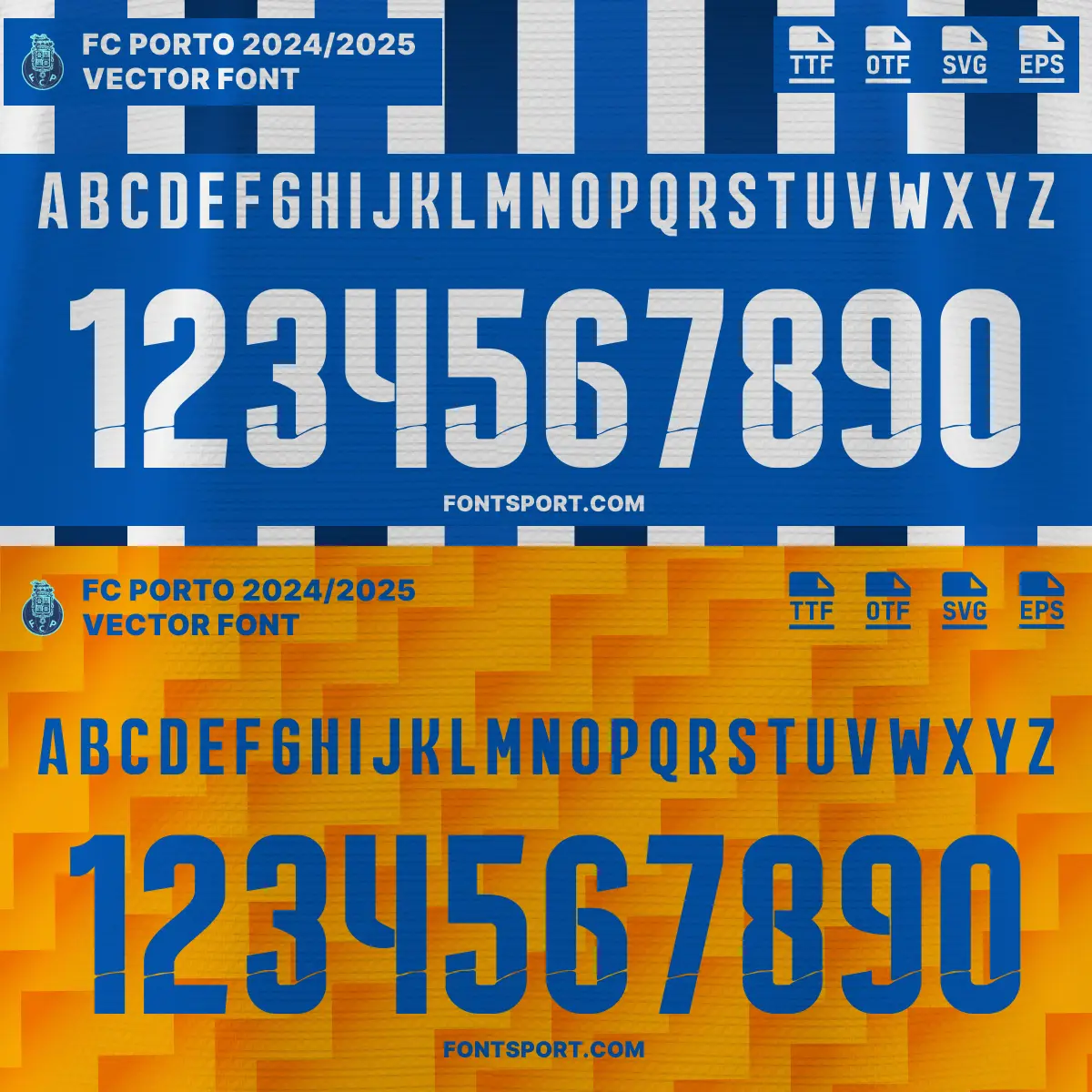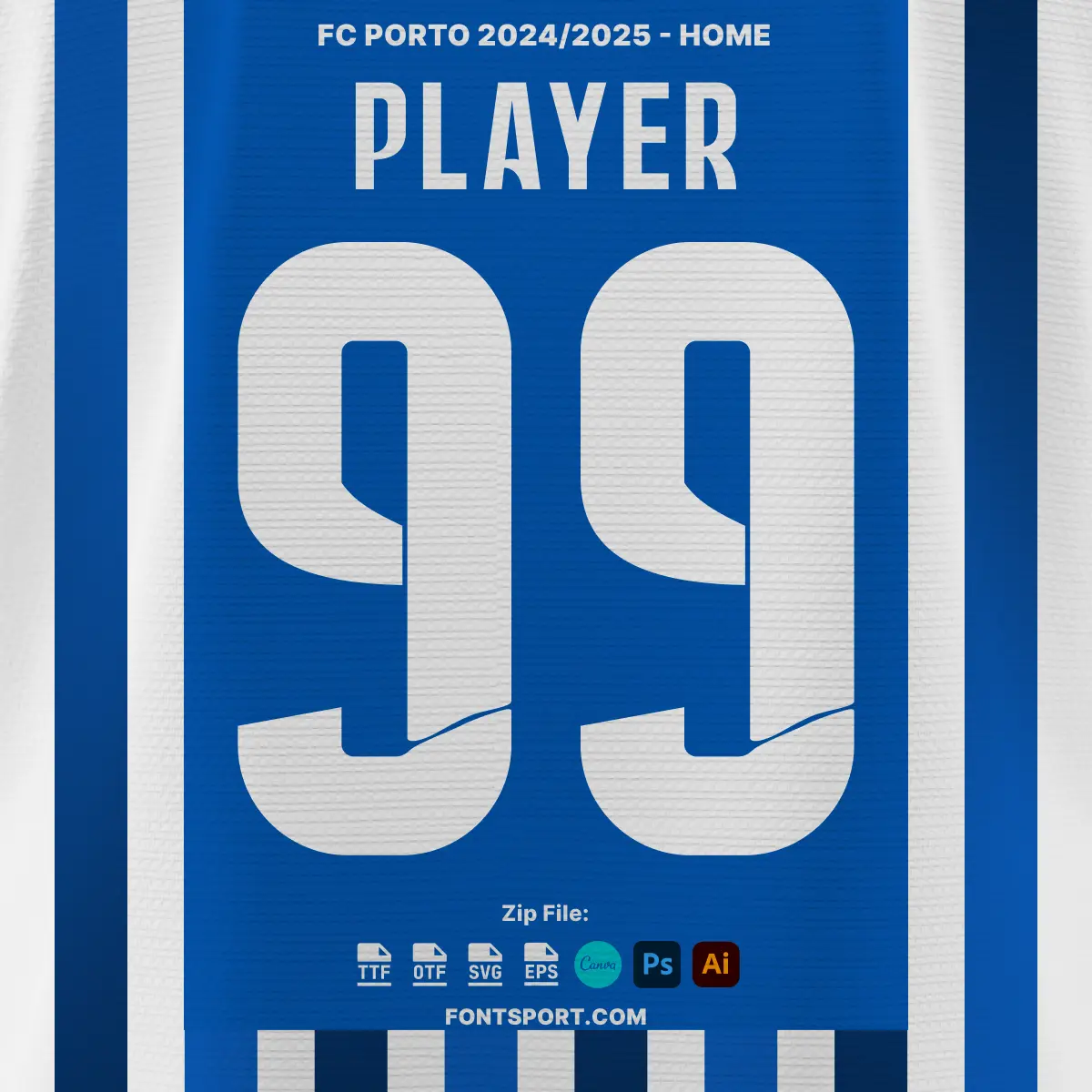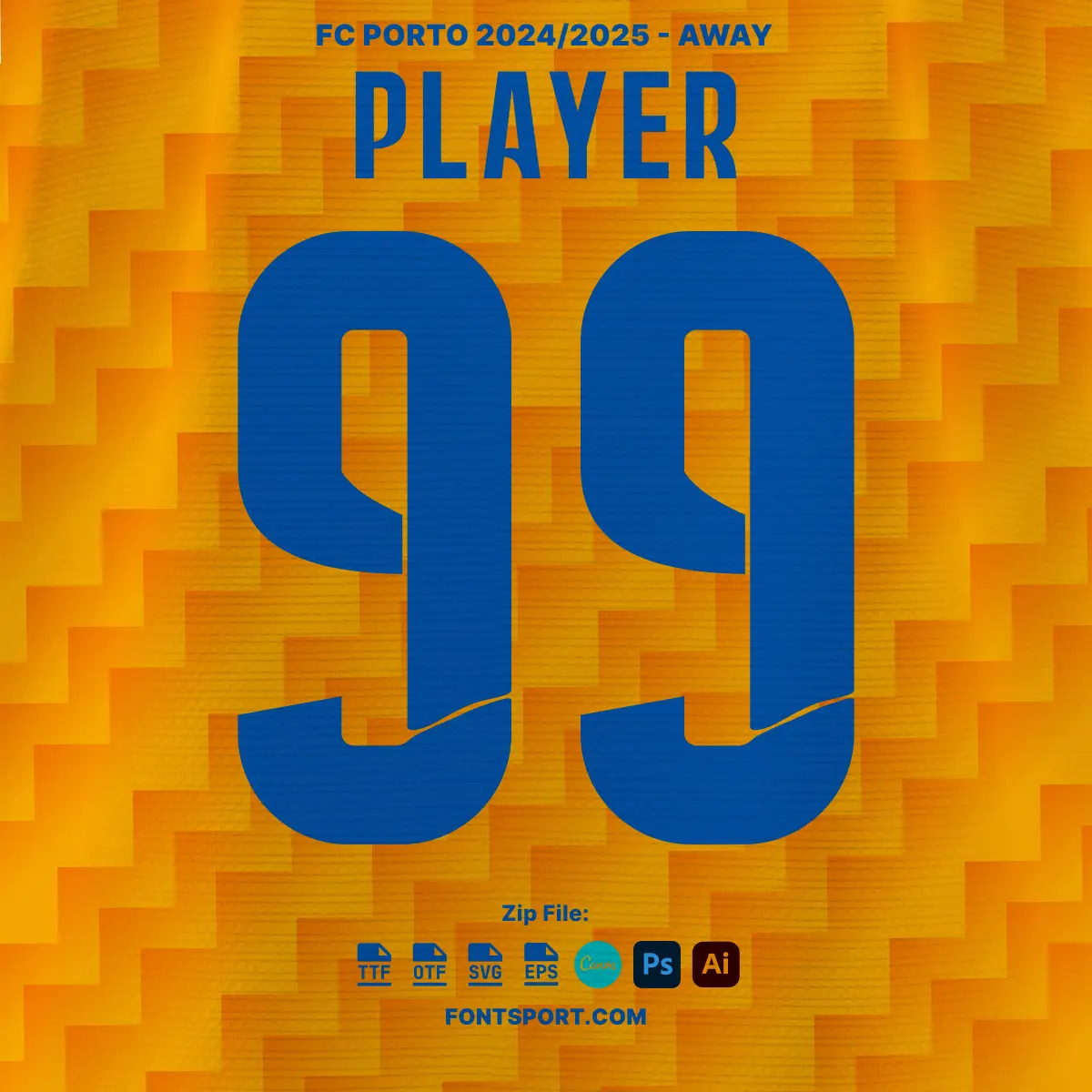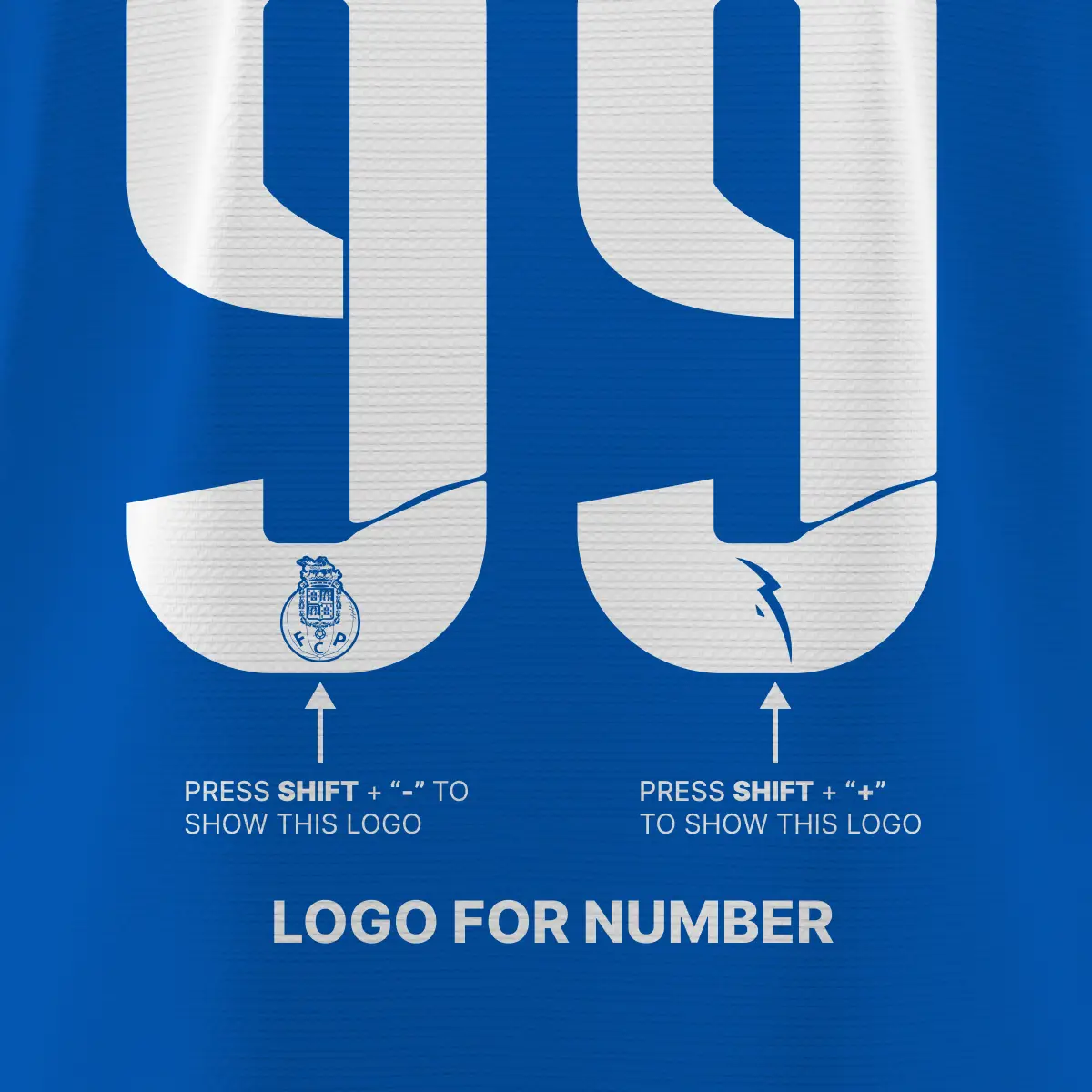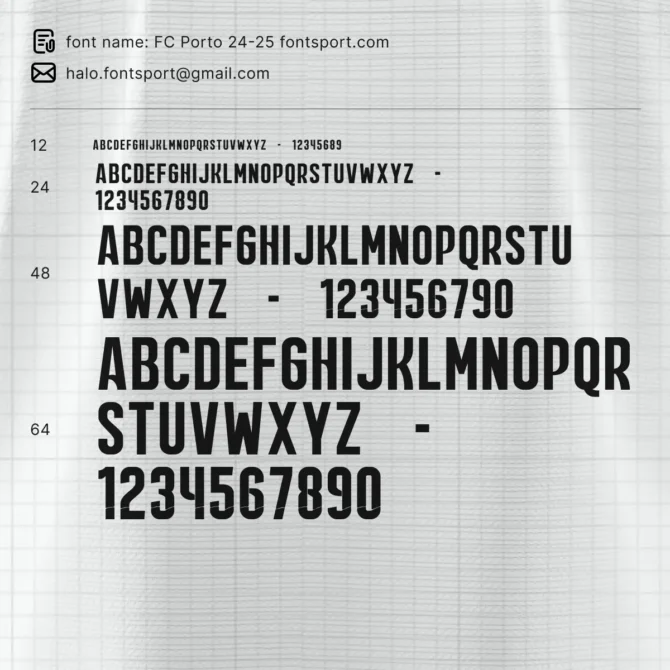
FC Porto’s 2024/2025 Font kit
The FC Porto Font Kit 2024/2025 is a custom-designed typeface inspired by the typography style used during FC Porto’s 2024/2025 season. Crafted for visual projects related to football culture, the font features bold, structured forms that work well in both digital and print design.
Whether you’re creating matchday posters, merchandise, jersey concepts, or fan-made content, this kit provides a cohesive set of tools to support your creative direction. It offers a balanced mix of style and utility — suitable for sports-themed designs or visual branding with strong character.
FC Porto, a Primeira Liga club known for its consistency and rich history, has featured standout players such as Pepe and Otávio. This kit subtly reflects the club’s energetic identity through visual cues embedded in the letterforms and supporting graphics.
What’s Inside the FC Porto Font Kit
• ✅ Full set of uppercase A–Z characters and numbers 0–9
• ✅ Built-in logo glyphs – simply type to reveal
Flexible and Compatible
The FC Porto Font Kit is designed to support a range of creative applications — from poster designs and gift wrap patterns to limited-run merchandise. It’s adaptable and can complement different types of layouts, especially those requiring bold, readable letterforms.